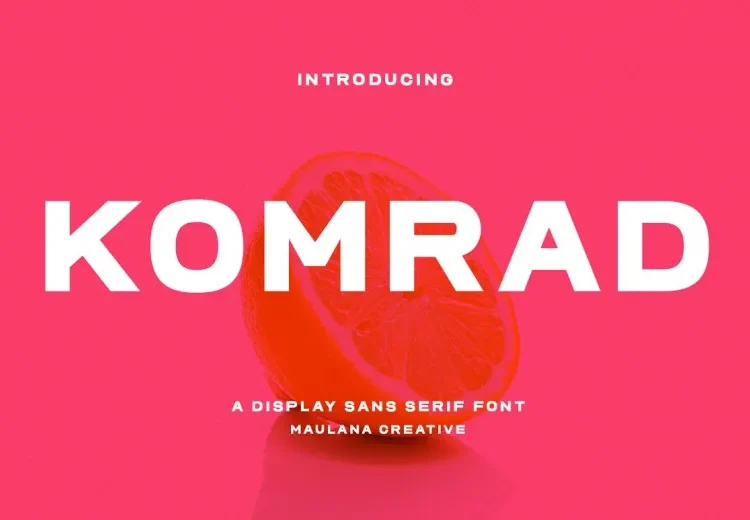
Komrad Font
Komrad is an all-caps contemporary sans serif font that brings a bold and playful character to your designs. Its semi-bold strokes, ligatures, and alternative letterforms infuse creativity into every project, offering endless possibilities for imaginative typography. With multilingual support covering over 100 languages, Komrad seamlessly adapts to global audiences, making it a versatile choice for diverse design needs.
Whether you’re designing a logo, creating social media posts, or crafting film and book titles, Komrad excels in delivering impactful visuals. Its clean and modern aesthetic pairs beautifully with serif or sans serif secondary fonts, enhancing both short headlines and extended text layouts. This adaptability ensures your artwork captures attention and communicates effectively.
Komrad’s unique combination of contemporary style and playful elements allows designers to experiment boldly. Use it to create striking artwork that leaves a lasting impression, whether for branding, editorial design, or creative digital content.